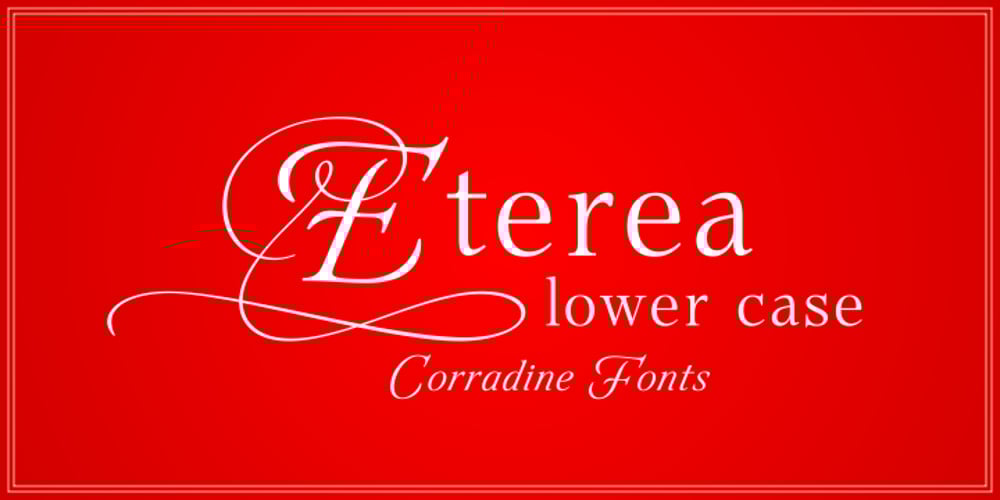
Eterea LC
Eterea LC font
Eterea LC Font Family was designed by Manuel Eduardo Corradine and published by Corradine Fonts. Eterea LC contains 11 styles and family package options. Eterea LC (Lower Case) is based in Eterea using the same Capitals but changing the lower case set. You can use this version of Eterea to give a more readable and soft aspect to your work.